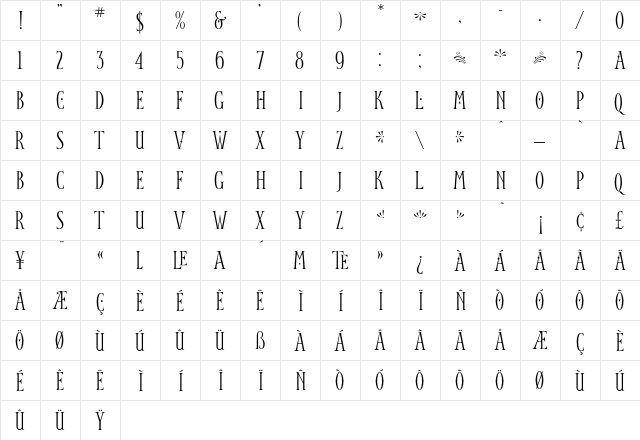
JMLibrisLight Regular
Design Context for JMLibrisLight Typeface
JMLibrisLight is a composed and adaptable typeface that performs quietly and consistently across a wide range of design contexts. Its slender proportions lend an understated elegance to any composition.